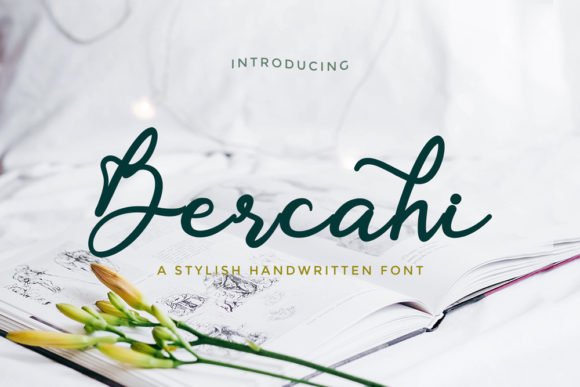
The Perfect Script Font for Your Designs
Have you ever been browsing through a beautifully designed website or social media post and thought, “Wow, I wish I could create something like that”? You’re not alone. Many designers and creatives are constantly on the lookout for the perfect font to elevate their designs. For those seeking a beautiful and refreshing script font, we have some exciting news.
Introducing the Bercahi Font, a dazzling script font that is sure to captivate your audience. Crafted with love and attention to detail, this font is perfect for those who want to add a touch of elegance to their designs. Whether you’re a seasoned designer or just starting out, the Bercahi Font is a valuable addition to your toolkit.
With its intricate details and beautiful curves, the Bercahi Font is sure to bring your designs to life. Its versatility makes it perfect for a wide range of projects, from wedding invitations to branding materials. So why settle for an ordinary font when you can have the Bercahi Font?
Bercahi Font Key Features
- Unique Characteristics: Bercahi Font features a unique blend of modern and traditional design elements, with a focus on elegance and sophistication.
Designer Review: Bercahi Font
Overall, I’d say the Bercahi font is a decent addition to any designer’s toolkit. Here are some things that work well:
- ✨ Unique aesthetic: Bercahi font has a distinct, hand-drawn feel that’s perfect for adding some character to your designs.
- ✨ Versatility: The font comes in a range of weights and styles, making it suitable for a variety of projects, from logos to body text.
- ⚠️ Limited language support: Bercahi font doesn’t include support for many non-Latin scripts, which may limit its use in certain projects.
- ⚠️ Some kerning issues: I’ve noticed that the font can have some issues with kerning, particularly when used in combination with other fonts.
- ⚠️ Limited customization options: While the font comes in a range of weights and styles, there are limited options for customizing the font’s appearance.
Overall, I’d say the Bercahi font is a solid choice for designers looking for a unique, hand-drawn feel. While it has some limitations, it’s a great option for projects where a more humanistic aesthetic is desired.
Bercahi Font is ideal for creative and modern designs, such as:
– Brochures and flyers
– Logos and branding
– Infographics and presentations
– Digital signage and advertising